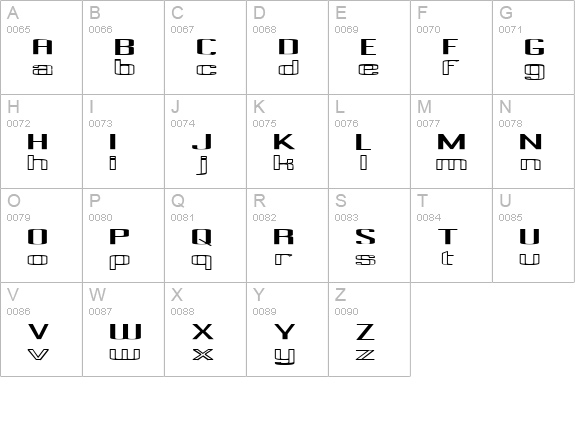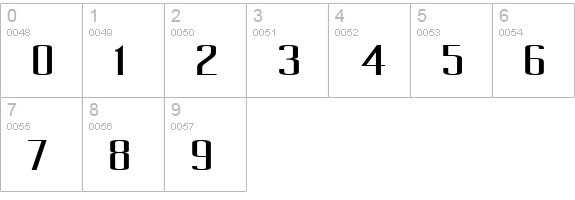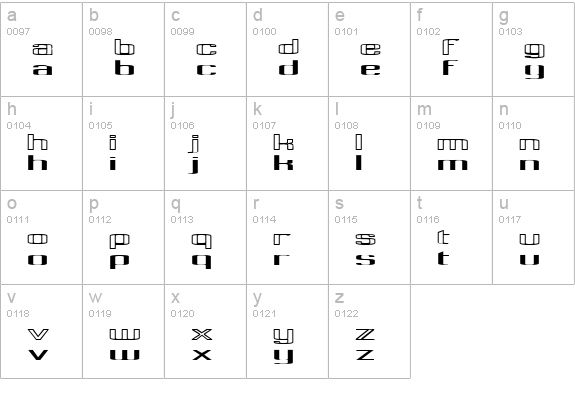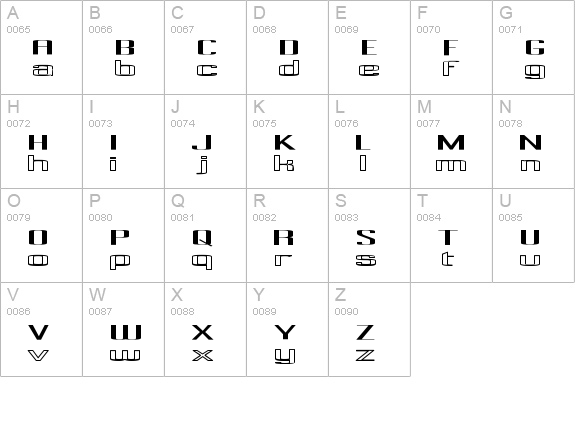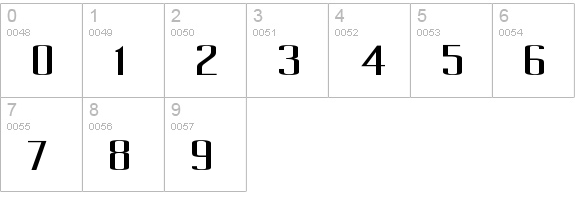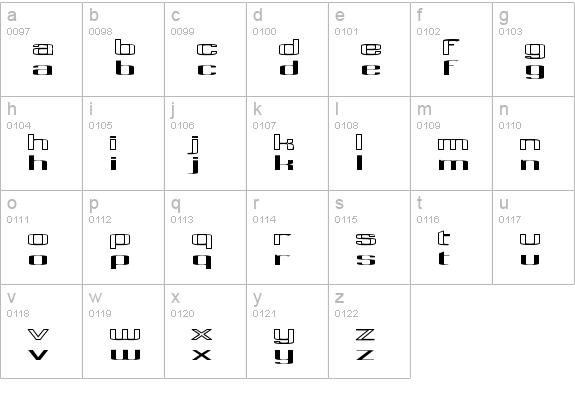
Introducing Pecot, a versatile and stylish combined font that is sure to make your designs stand out. This unique font combines elegance with a touch of modernity, making it perfect for a wide range of projects. Pecot features a harmonious blend of serif and sans-serif elements, creating a visually appealing and dynamic appearance. The best part? Pecot is available for free download at FontsMarket.com. Whether you're working on a branding project, website design, or any other creative endeavor, Pecot is a fantastic choice that will elevate your work to the next level. With its clean lines, balanced proportions, and timeless appeal, this font is a must-have addition to your font library. Download Pecot today and unlock endless design possibilities with this stunning combined font. Elevate your projects with the elegance and sophistication of Pecot, now available for free at FontsMarket.com.